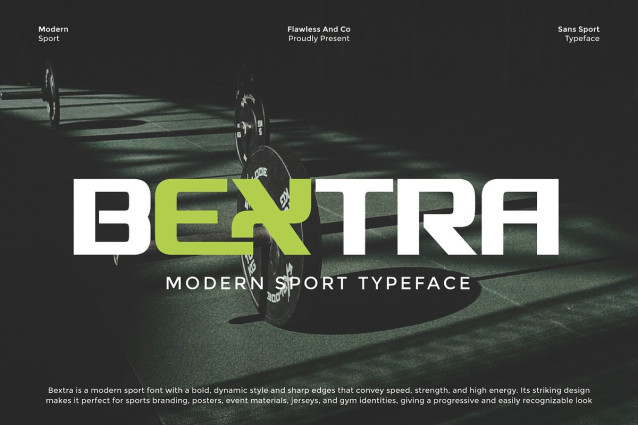
Bextra Font
Bextra Font is a modern sport font designed with bold, dynamic shapes and sharp edges that embody speed, energy, and strength. Its clean yet powerful style makes it the perfect choice for sports branding, team logos, posters, event materials, gym identities, and athletic merchandise. With its striking appearance, Bextra delivers a professional, progressive, and instantly recognizable look that pushes every design to perform at its best.